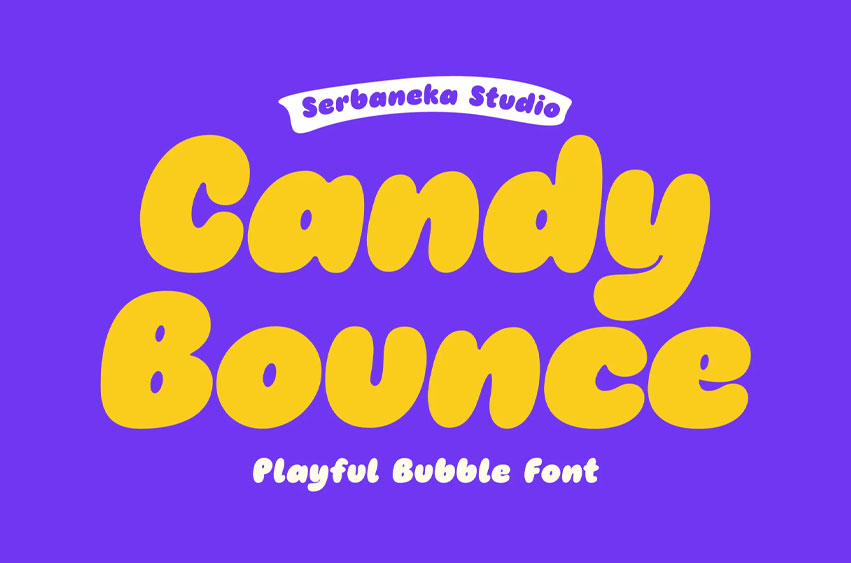
Candy Bounce Font
Candy Bounce Font is a bold and playful bubble display font crafted with soft, rounded shapes and a fun, puffy style that instantly catches the eye. Inspired by candy, cartoons, and cheerful branding, this font brings a sweet and energetic personality to any design.
With its thick strokes and smooth curves, Candy Bounce creates a lively and friendly look that works perfectly for kids-focused projects and fun visual concepts. The bouncy letterforms add movement and charm, making your text feel dynamic, joyful, and full of life.
This font is ideal for candy packaging, snack branding, children’s products, game titles, posters, logos, and social media content. Whether you’re designing for sweets, toys, or playful campaigns, Candy Bounce helps your work stand out with a delicious and eye-catching style.
Perfect for both print and digital use, it ensures readability while keeping a strong, bold presence.
• Bold Bubble Style
• Rounded & Soft Shapes
• High Readability Display Font